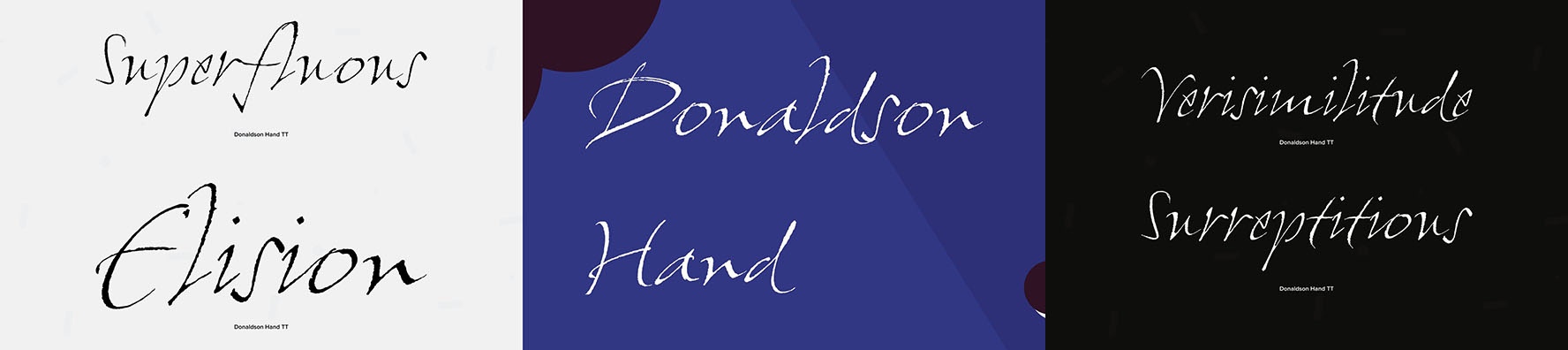
Donaldson Hand Font
Donaldson Hand Font is perfect for personal branding, artisan craft signage, handmade product labels, authentic cafe marketing, personalized stationery design, small business communications, friendly service advertising, and genuine local business promotions.
What makes Donaldson Hand Font exciting is its personal authenticity that embodies genuine human connection and handcrafted warmth with artisan character and personal touch. The font features natural letterforms with handwritten proportions and personal character that evoke handwritten notes, craftsman signatures, and the authentic warmth of personal interaction and human-made quality. Its distinctive handwritten styling and personal appeal communicate genuineness, approachability, and human connection, making every message feel personally written and touched by the authentic warmth of individual care and handcrafted attention.
The Donaldson Hand Font family includes regular weight with uppercase and lowercase letters, numerals, punctuation marks, and special characters. Premium versions often feature handwritten alternates and personal elements that enhance the authentic, artisan aesthetic perfect for personal and craft applications.
The personal character of Donaldson Hand Font makes it particularly valuable for local artisans, personal service providers, and handmade business owners. Its excellent readability ensures personal messaging and craft communications remain clear while maintaining the distinctive handwritten aesthetic that appeals to customers seeking authentic personal experiences and genuine human interaction.
Personal business marketers appreciate how Donaldson Hand Font effortlessly conveys authentic genuineness and personal care. The font's natural proportions and handwritten details create trustworthy brand materials that establish personal connections with audiences who value human interaction, artisan quality, and the authentic warmth of handwritten communication and personal service.
The versatile authenticity of this typeface extends to personal coaching, artisan workshops, and local community services where handwritten authenticity enhances personal credibility and human appeal. Donaldson Hand Font Free Download provides creative professionals with an essential tool for developing memorable, connection-driven designs that resonate with audiences who embrace personal authenticity, human warmth, and the genuine character of handwritten communication in their personal and business relationships.